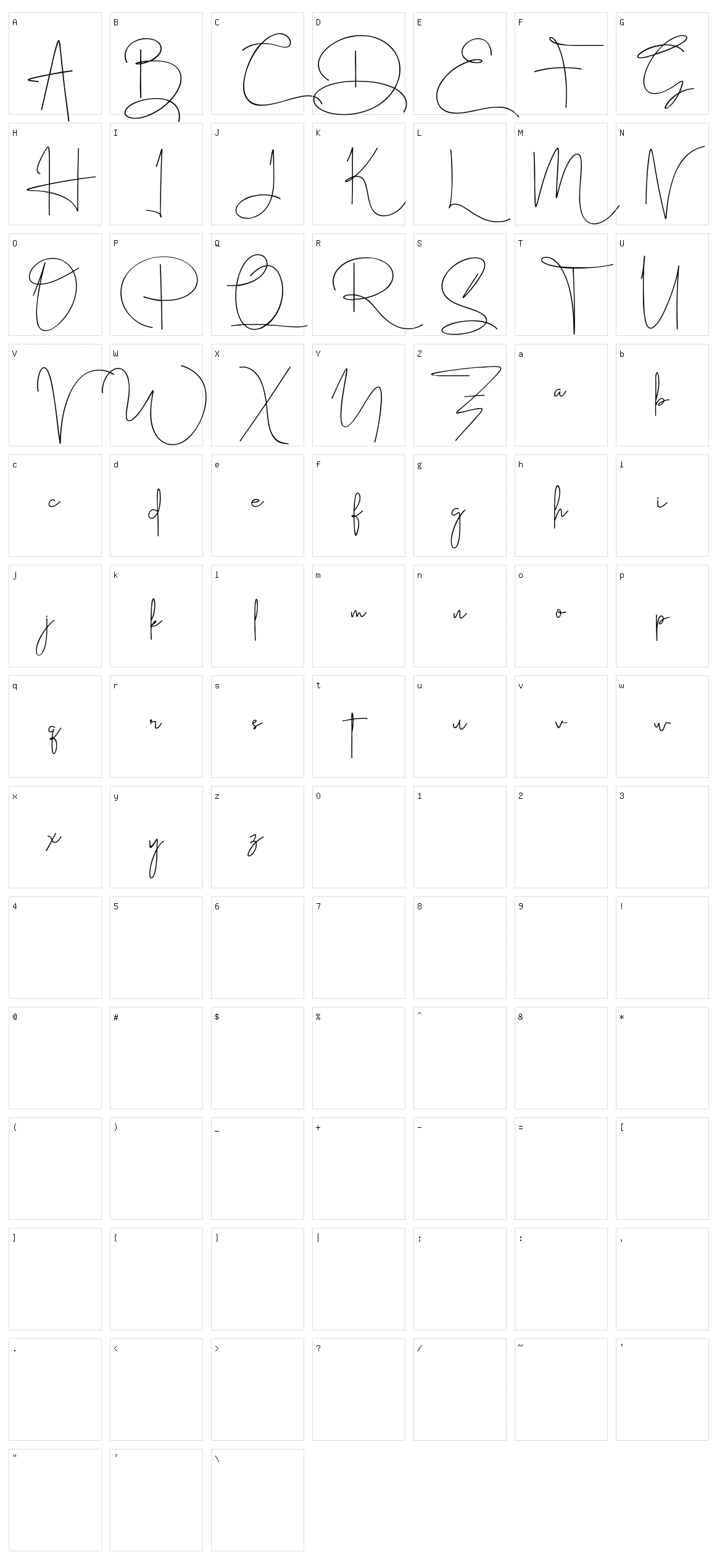
The free font Dalton White is carefully designed by Madhaline Studio, showcasing a thoughtful balance of creativity and usability and falls under the Script font style. When you download the ZIP file, it contains only 32.32 KB of font files, making it lightweight and quick to download. Please review the license details below to understand permitted usage and distribution rights. If license information is not available, we recommend using this font for personal projects only or contacting the author directly for commercial usage permissions.